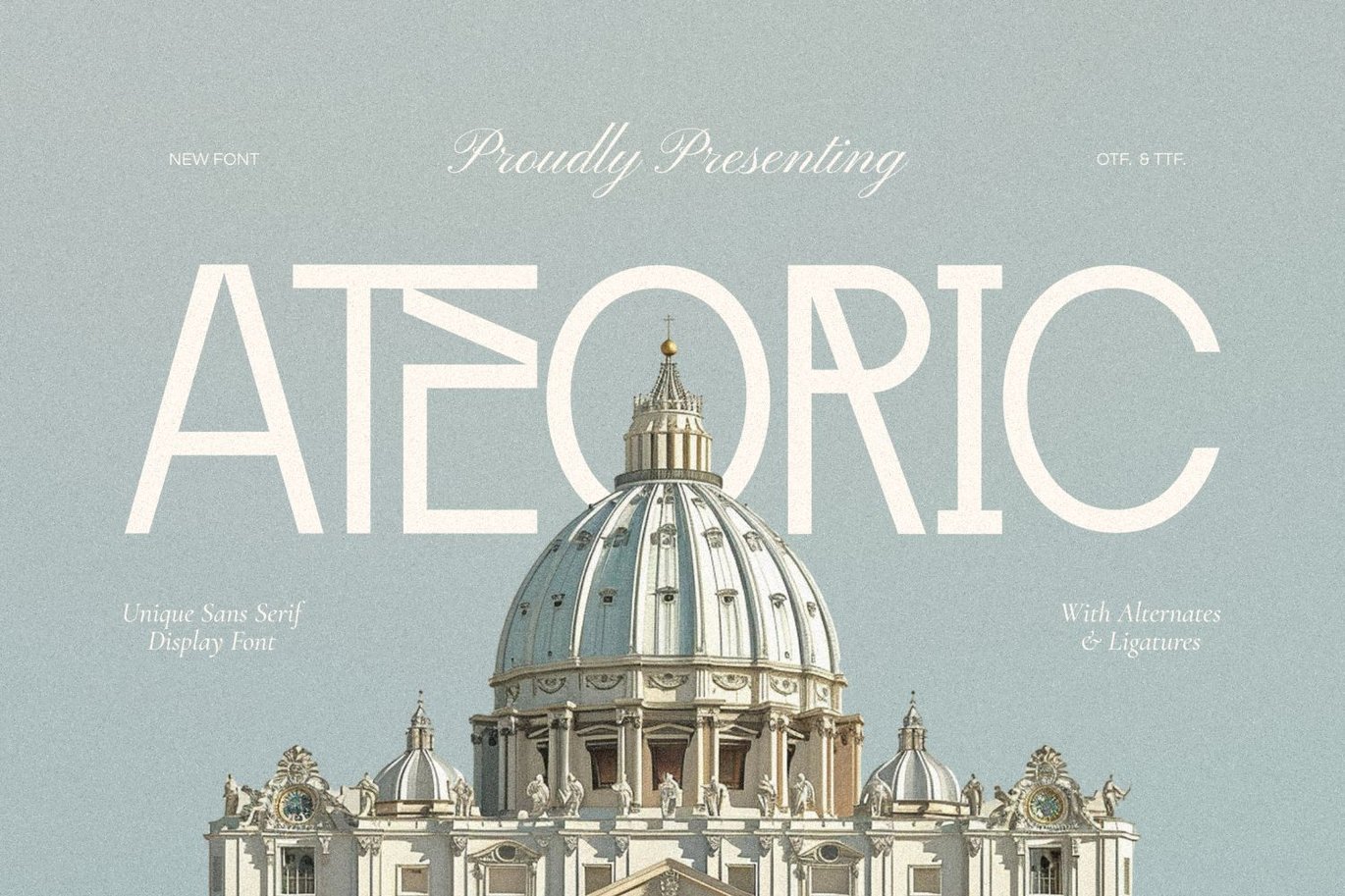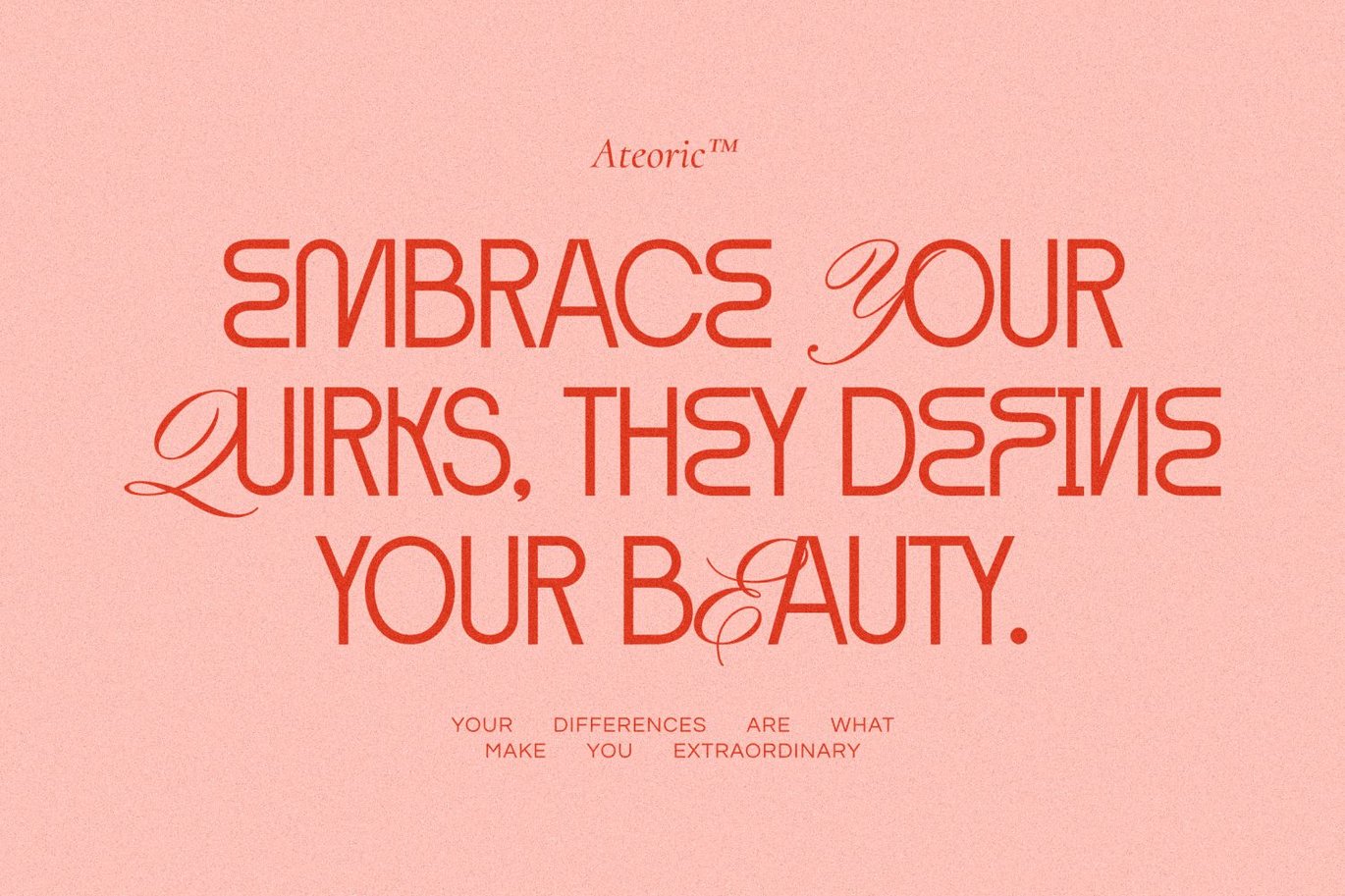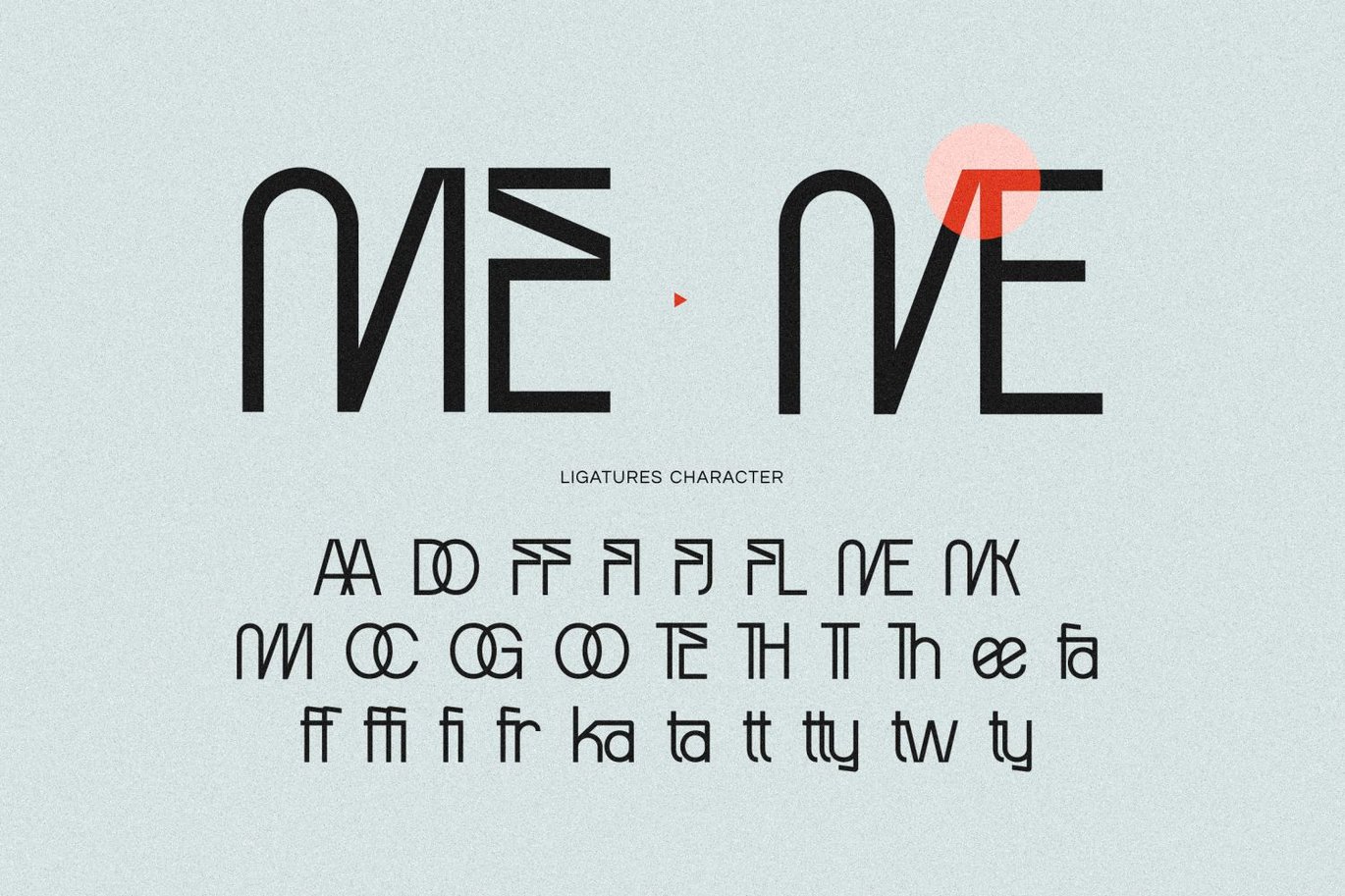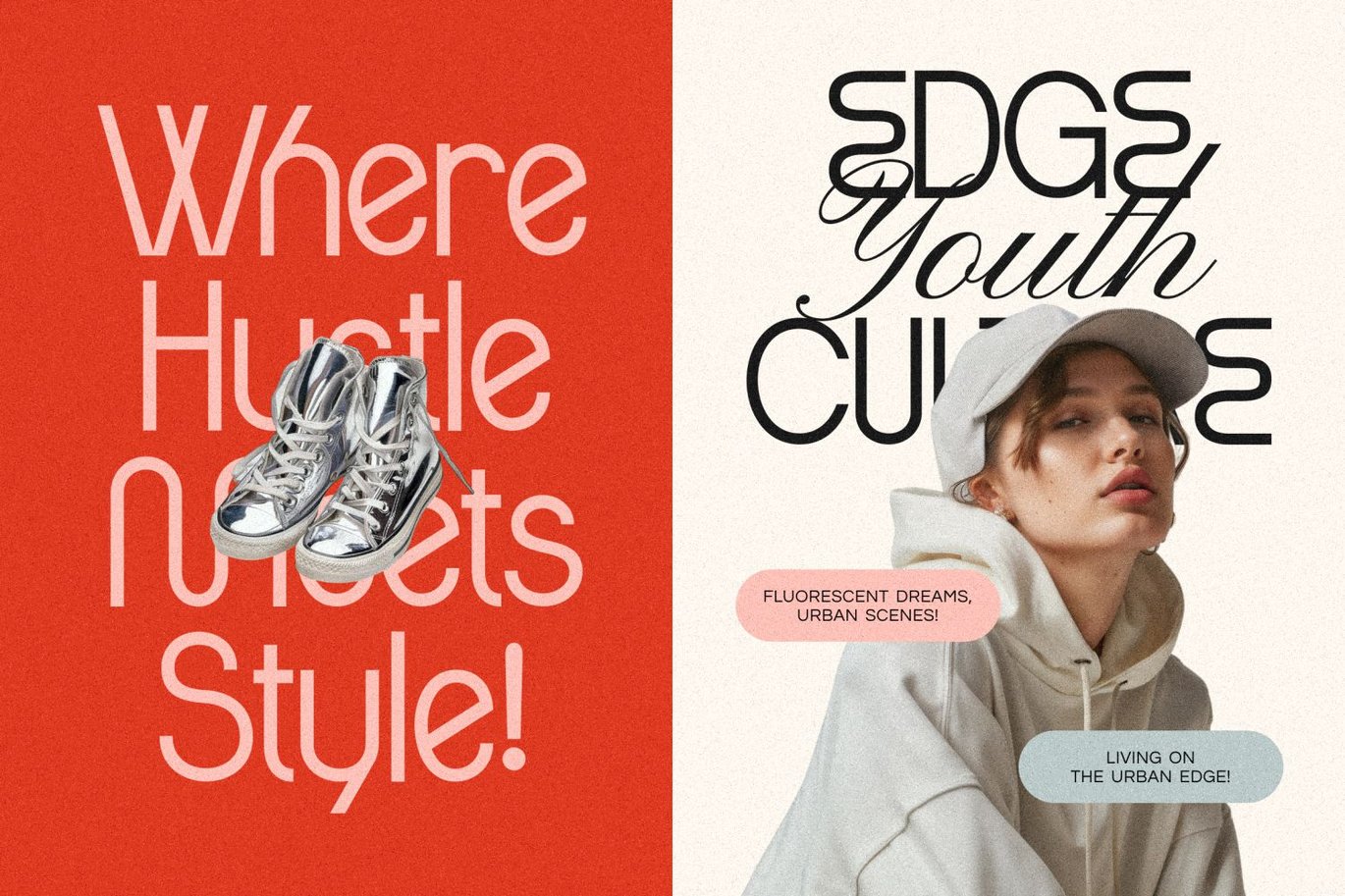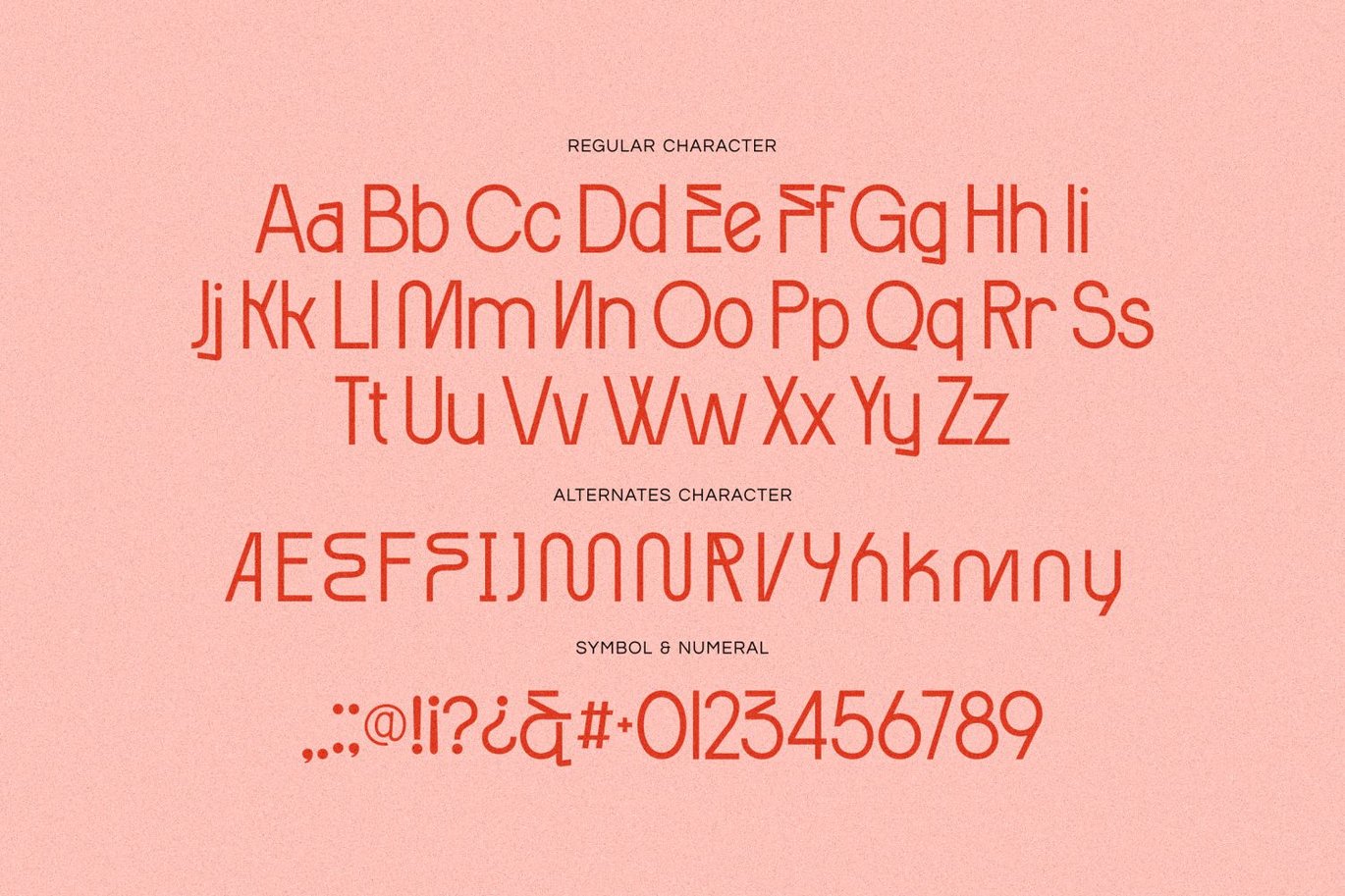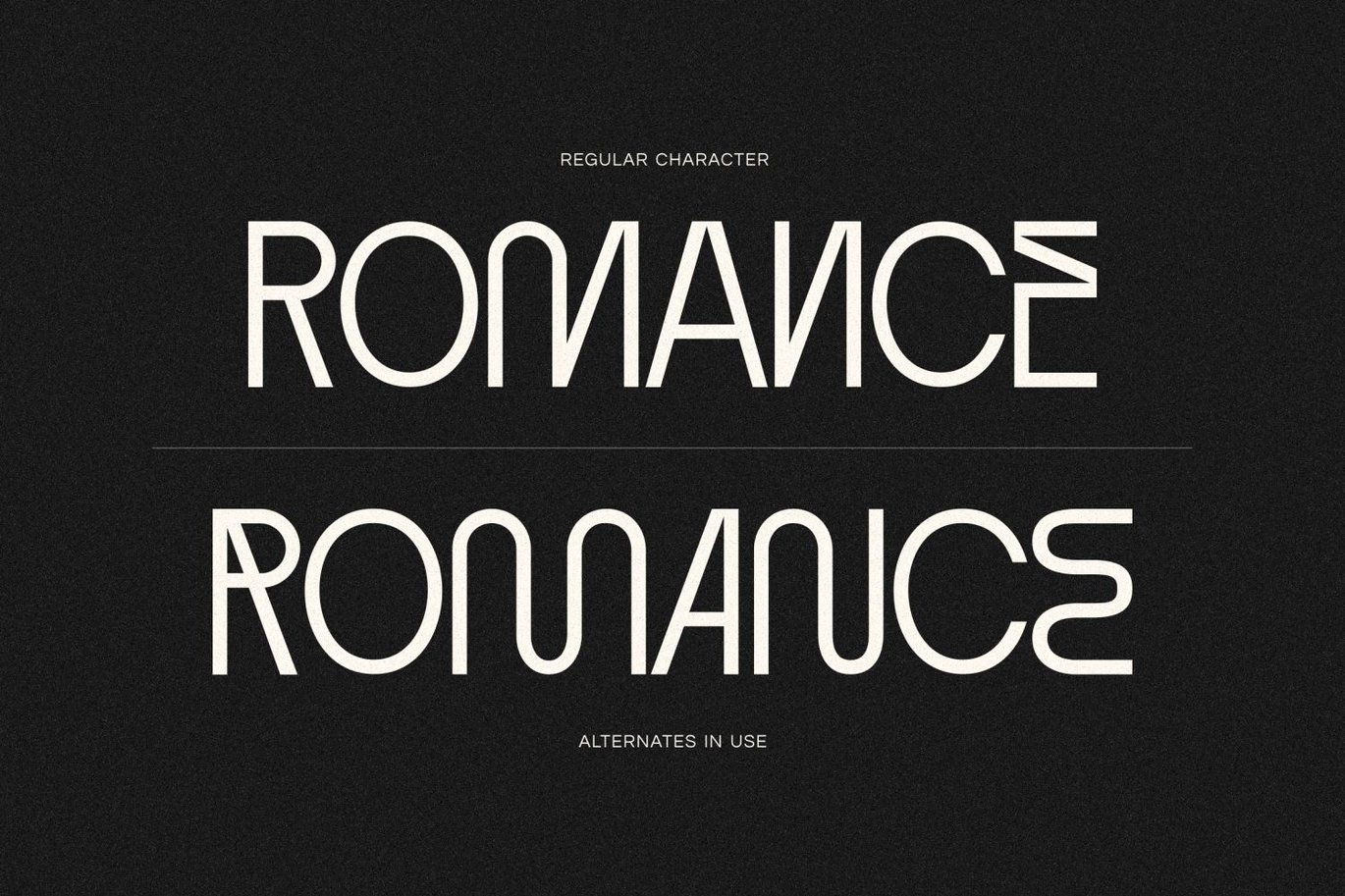
Ateoric – Edgy Grotesque Typeface
Introducing ATEORIC, a unique, sophisticated, and versatile sans serif typeface designed to enhance your creative projects. This typeface harmoniously combines elements of timeless baroque-inspired sans serif with modern sans serif, featuring curved cuts that elevate the artistic appeal of the font, creating a typeface that is both captivating and adaptable.
Perfect for applications in editorial, publishing, magazines, books, luxury branding, logos, brand identity, packaging, art deco, from cosmetics to gourmet foods, posters, and others.